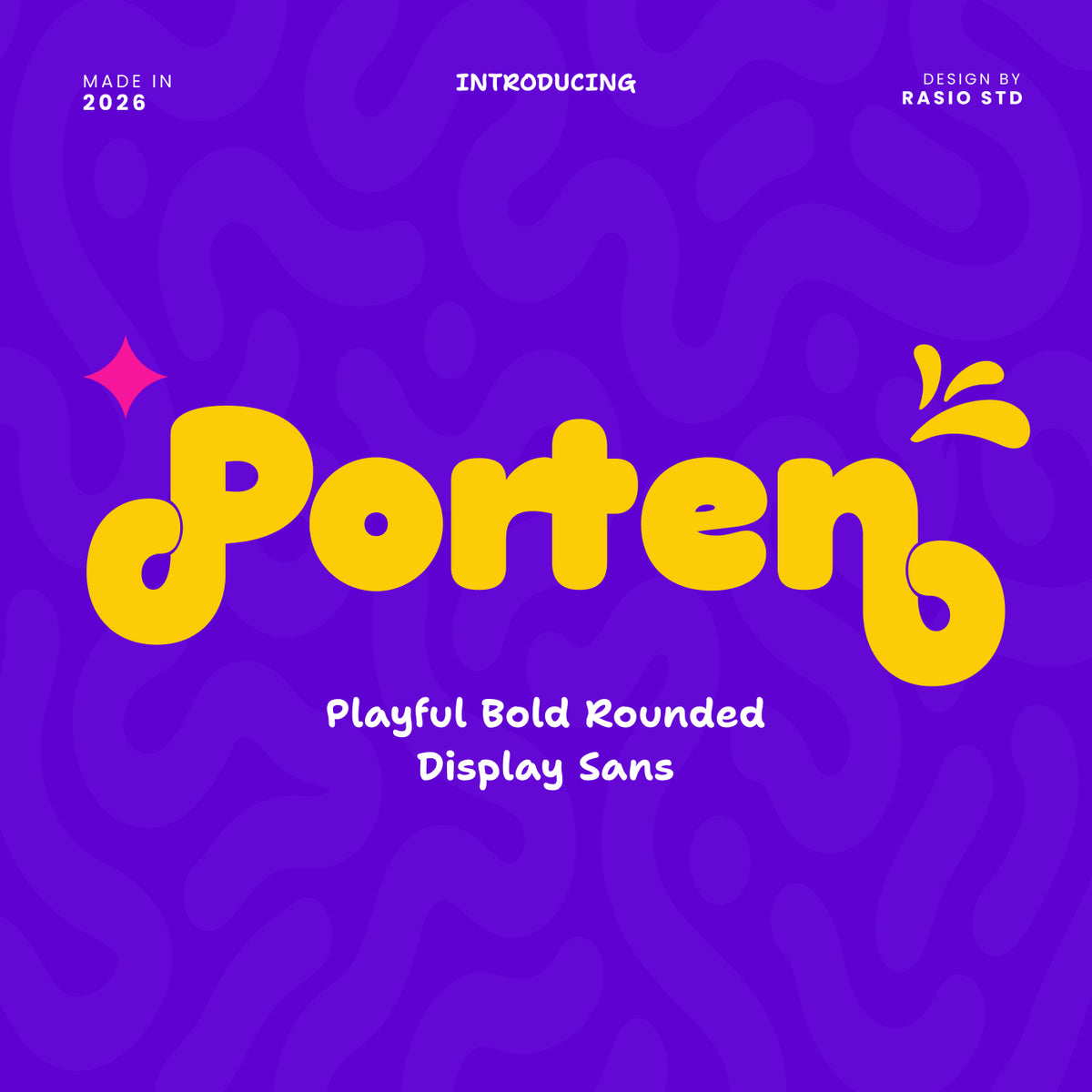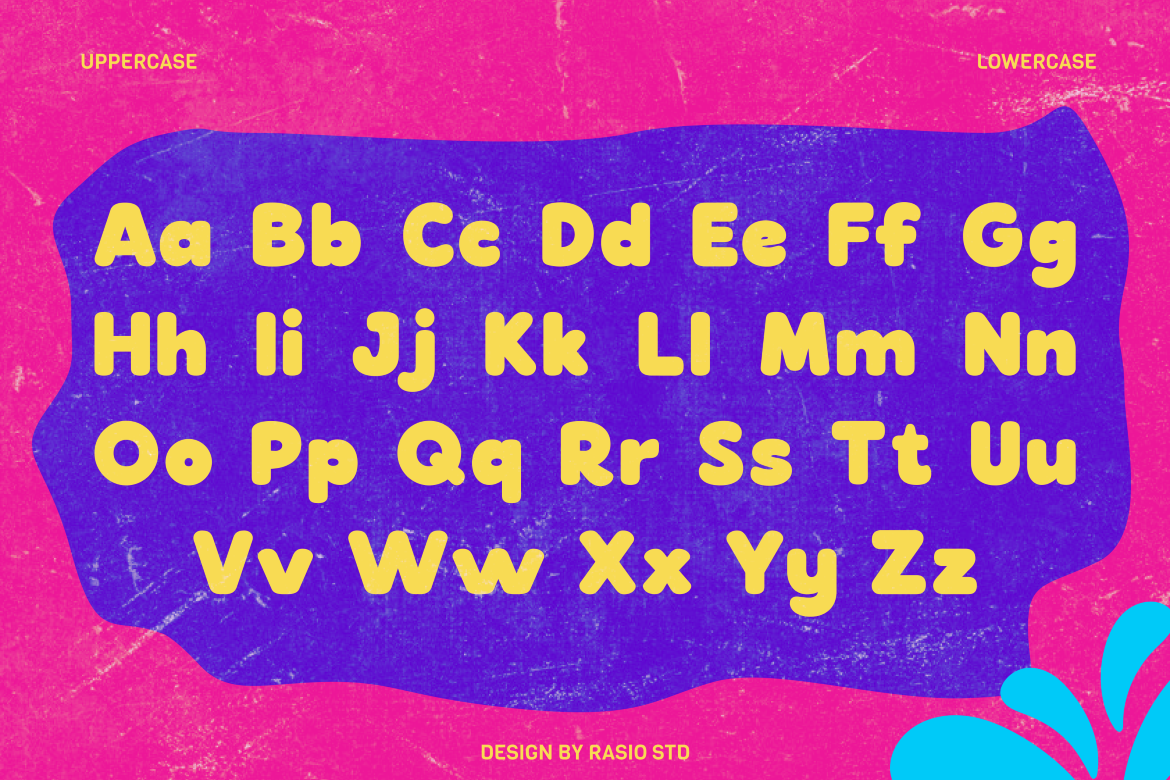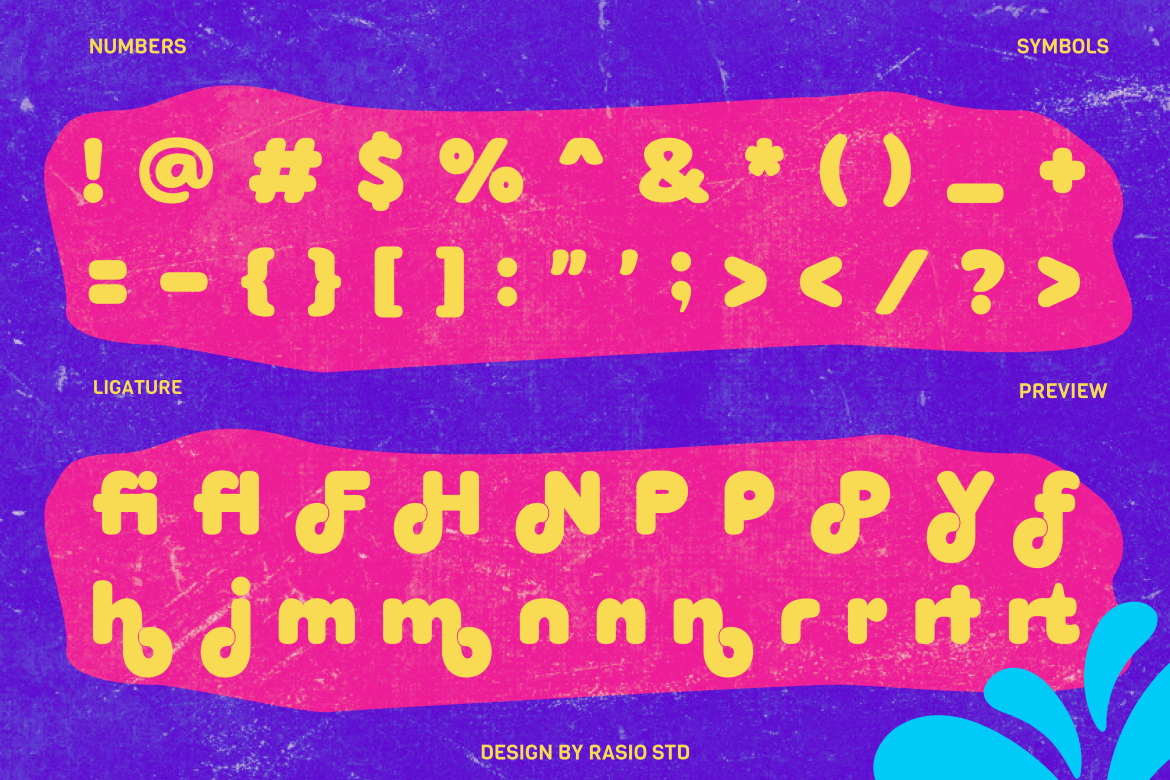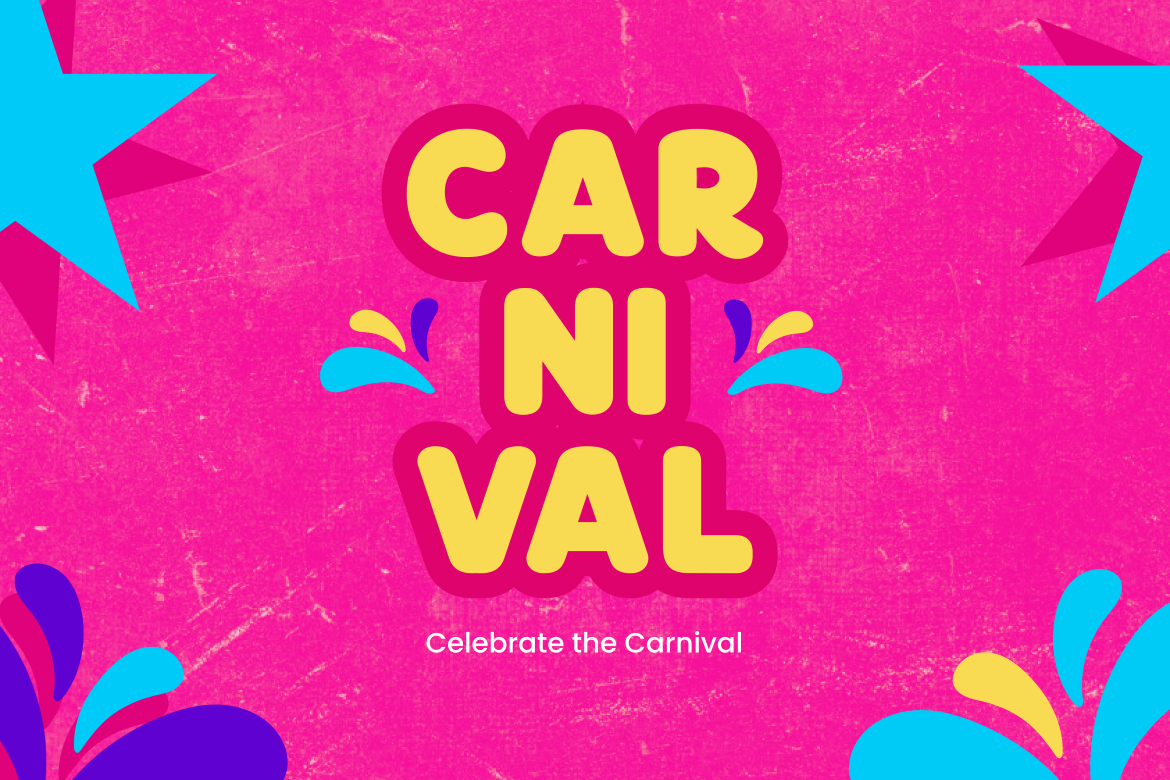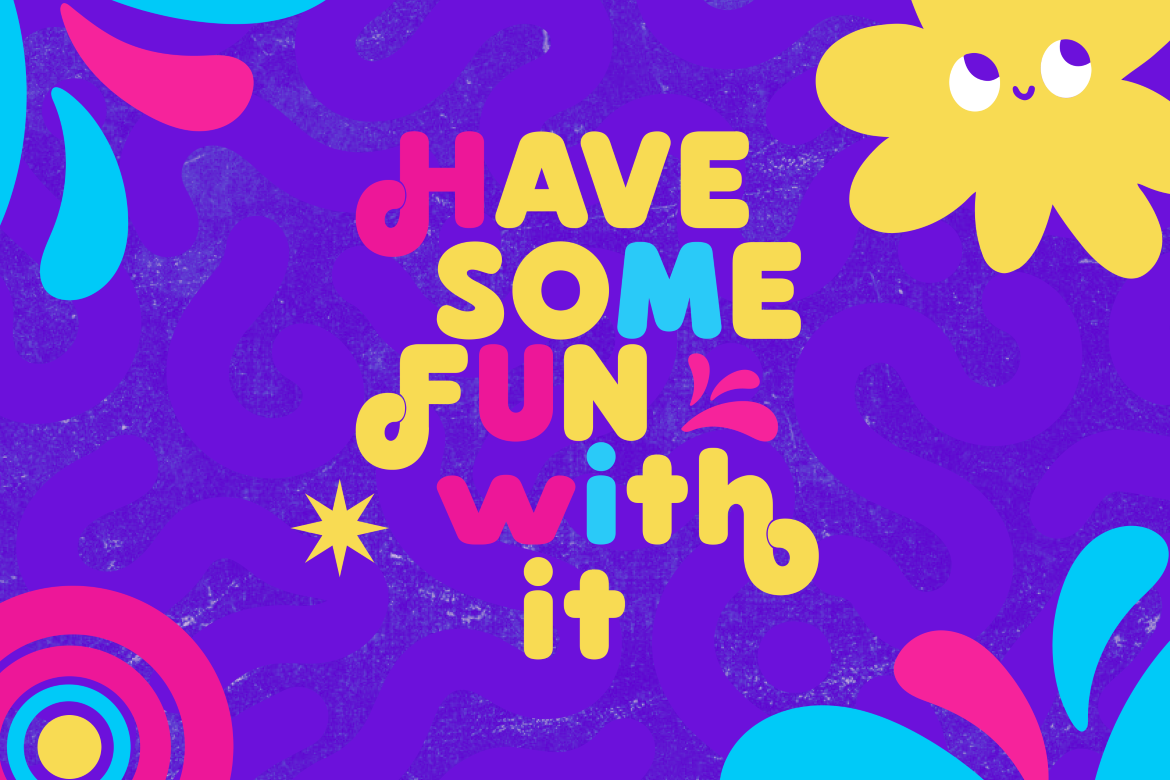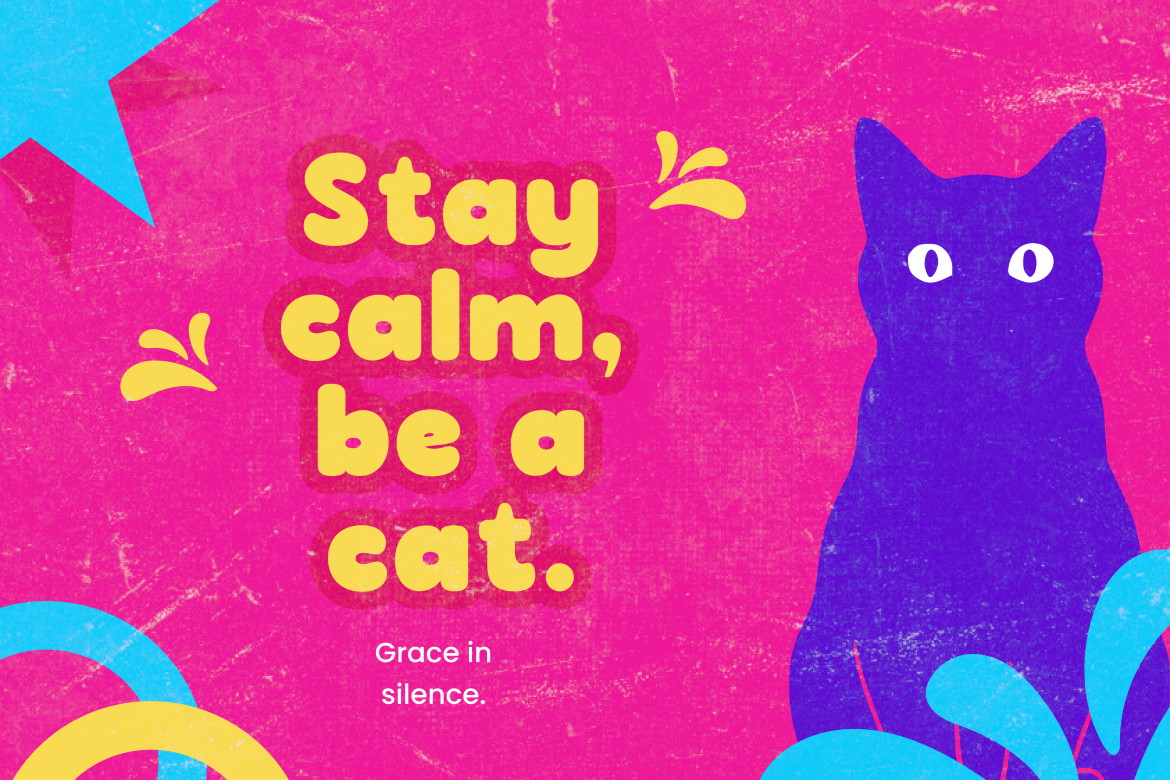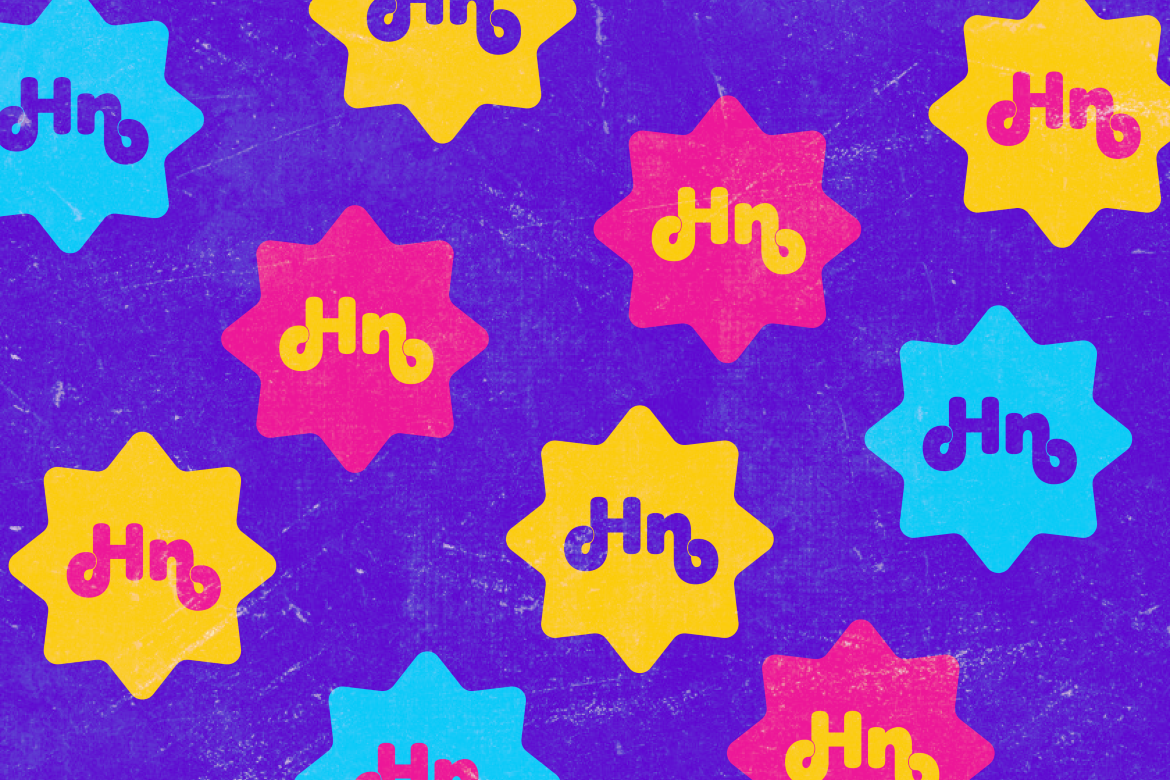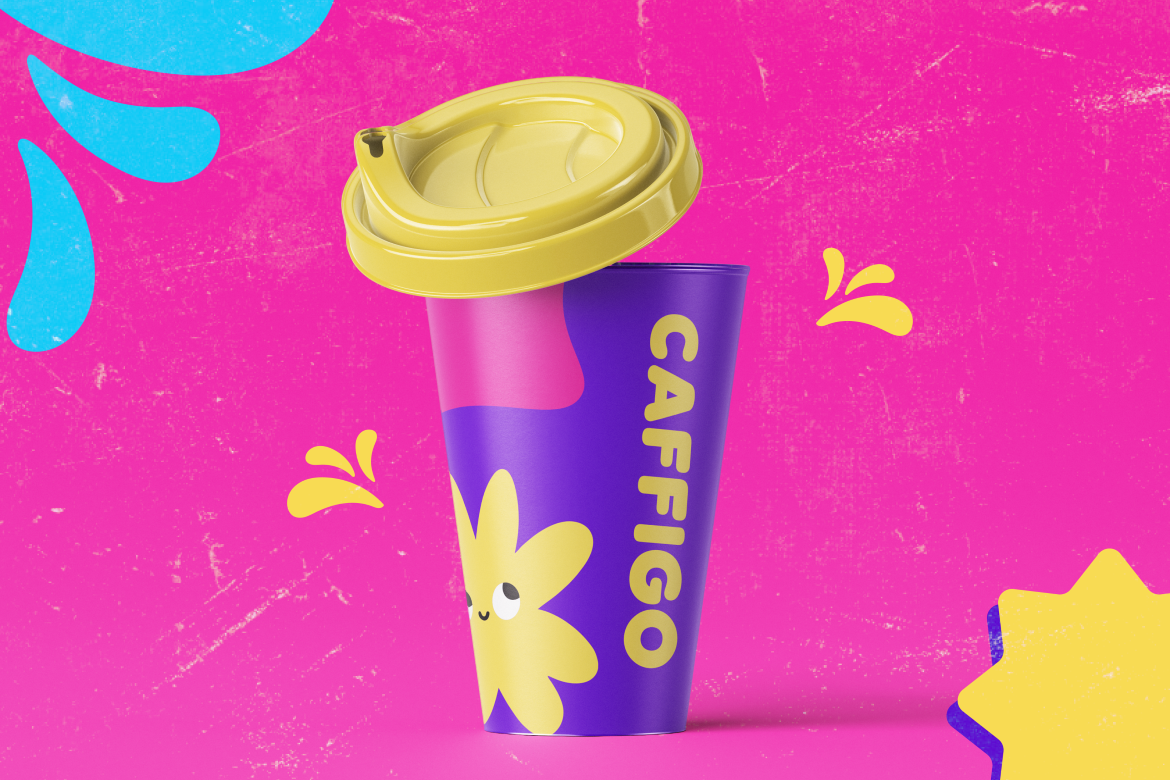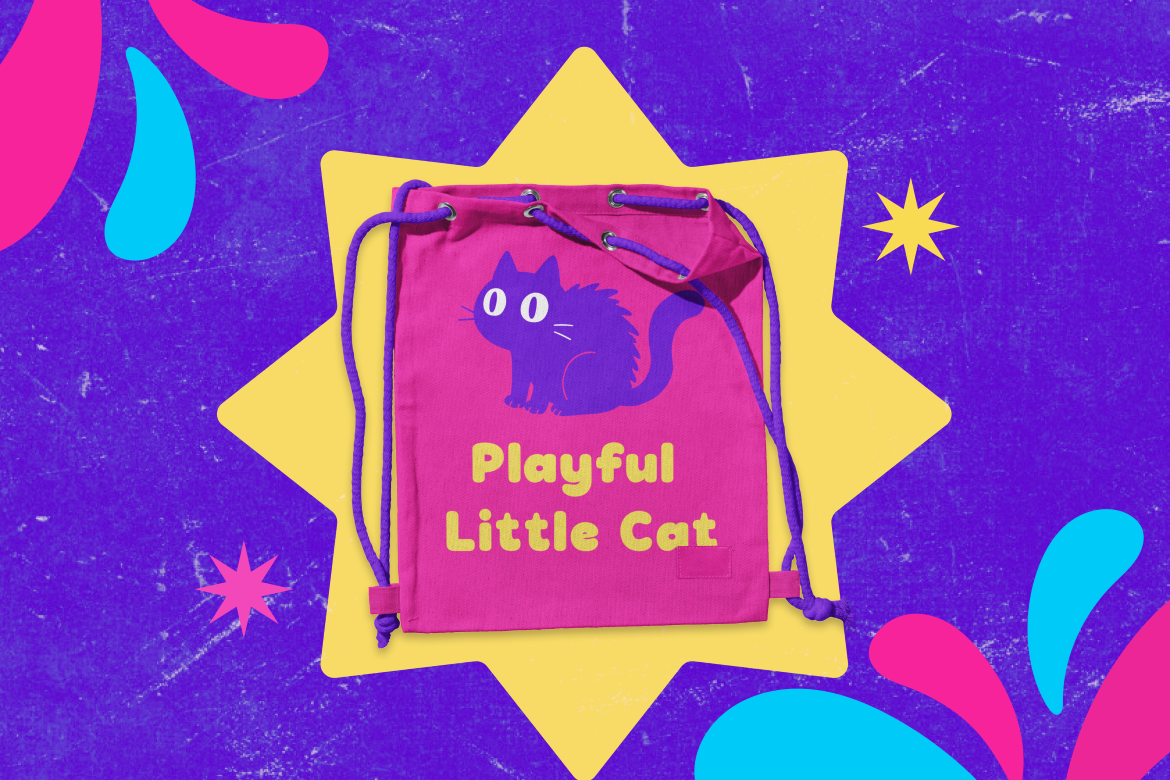
Porten Playful Bold Rounded Display Sans Font
Porten is a bold rounded display sans serif with a playful and expressive personality. Featuring chunky letterforms, smooth curves, and soft terminals, this typeface delivers a friendly and eye-catching presence for standout headlines. The package includes uppercase, lowercase, numerals, and punctuation in standard font formats. Designed primarily for display purposes, it performs best in large sizes for branding, posters, packaging, and vibrant digital visuals.
Relevance and Use Cases is perfect for creative projects that need a bold, cheerful, and approachable tone. Perfect for children’s branding, toy packaging, fun social media graphics, posters, playful quotes, YouTube thumbnails, and colorful merchandise designs that demand strong visual impact.
Porten is a bold rounded display sans serif font featuring chunky letterforms, smooth curves, and soft terminals. It includes uppercase, lowercase, numerals, punctuation, ligatures, and alternates in OTF, TTF, and WOFF formats.